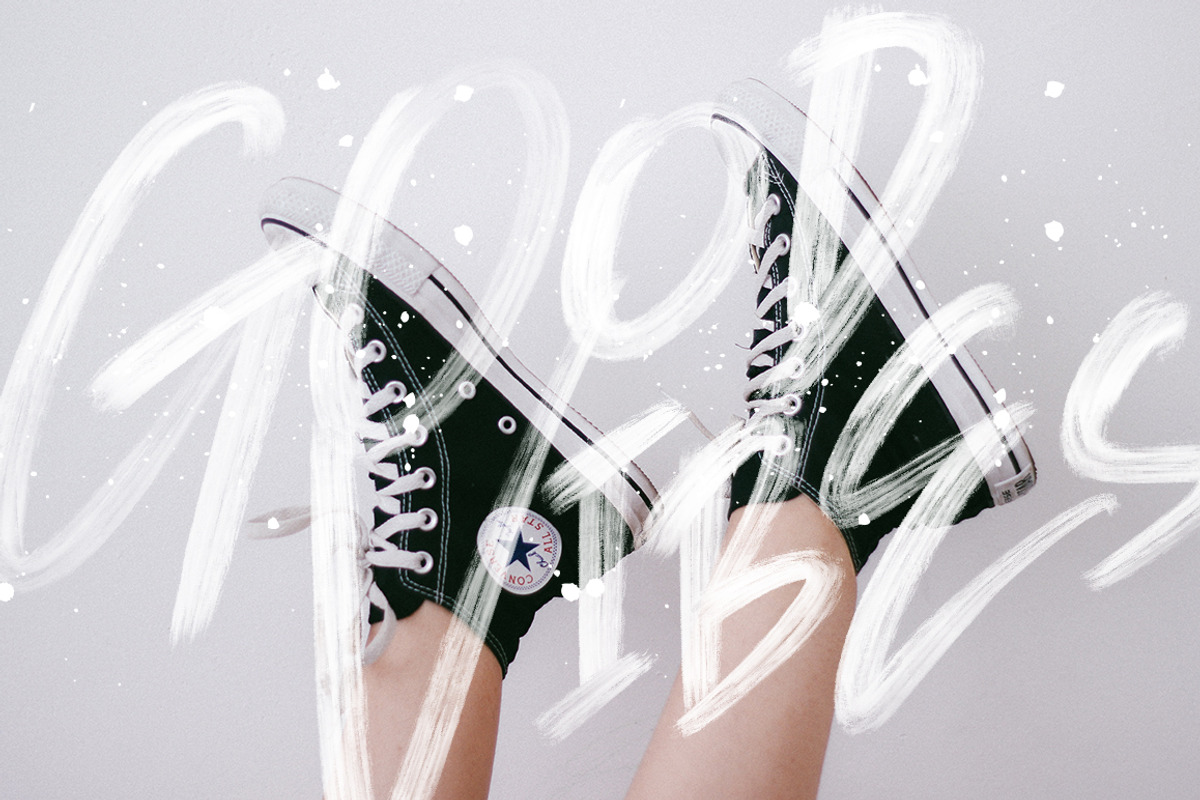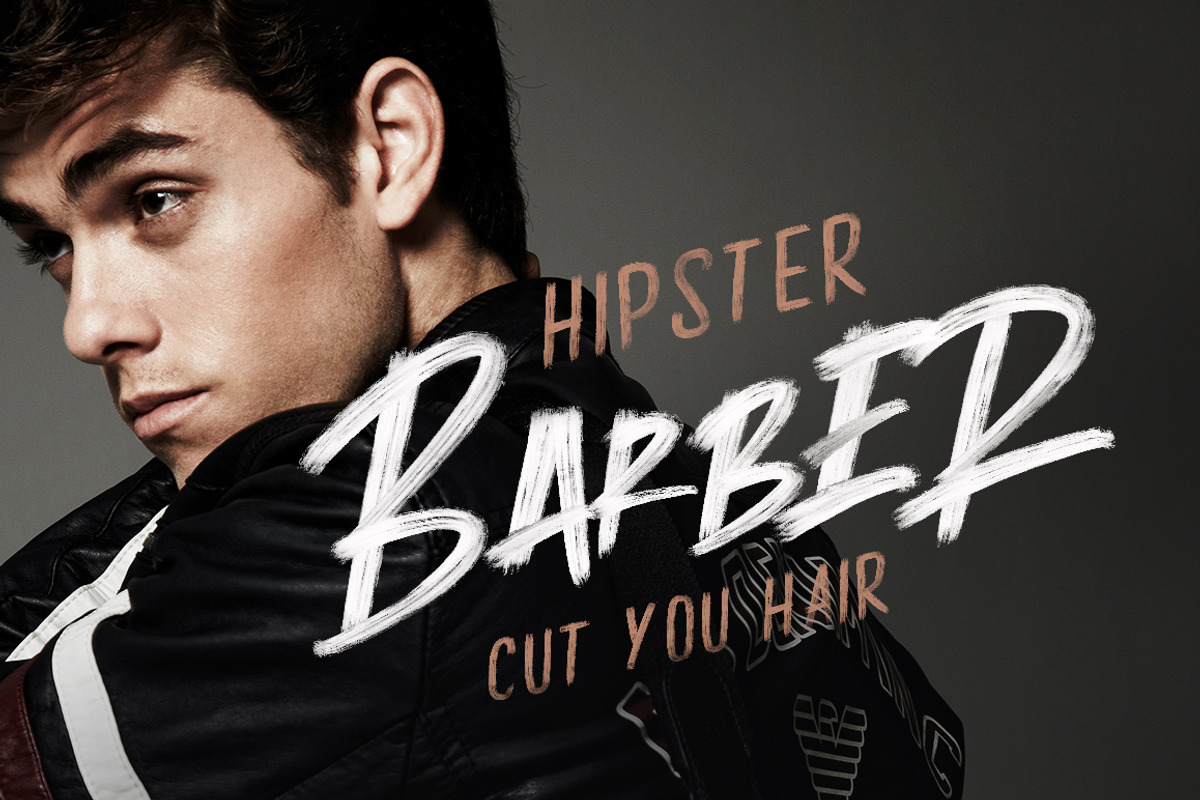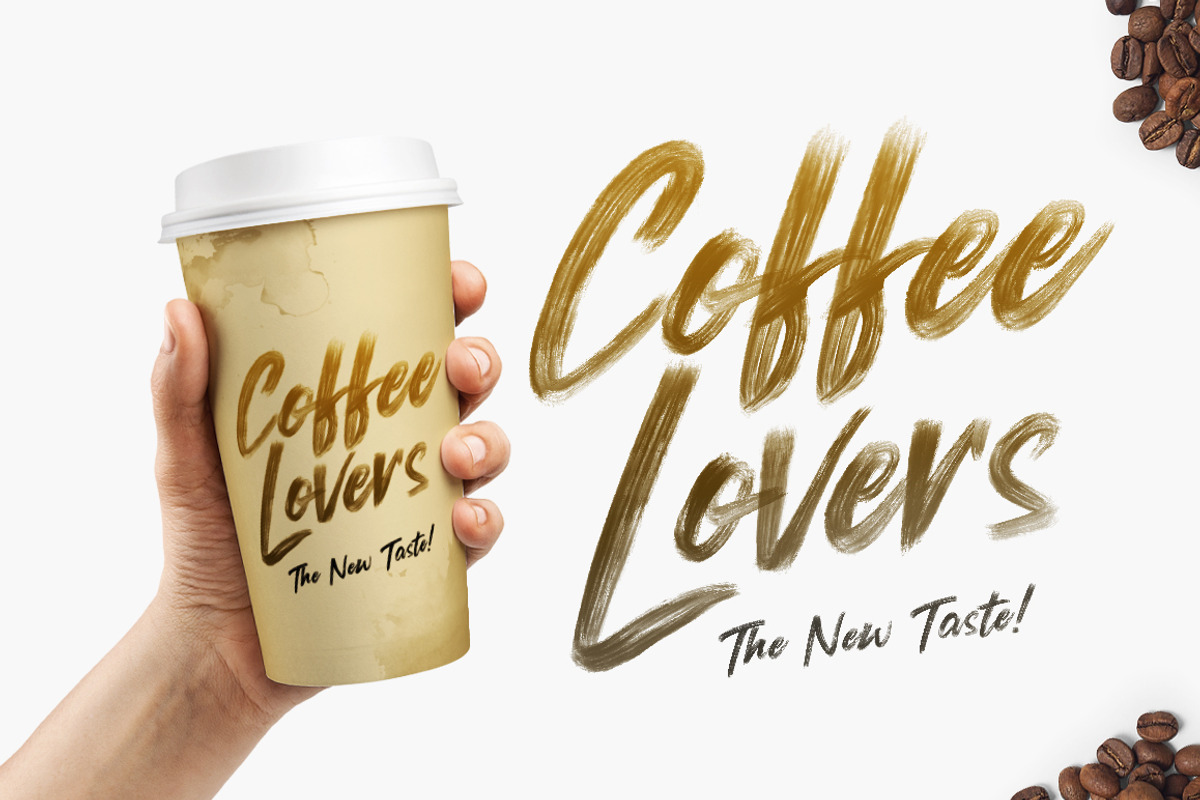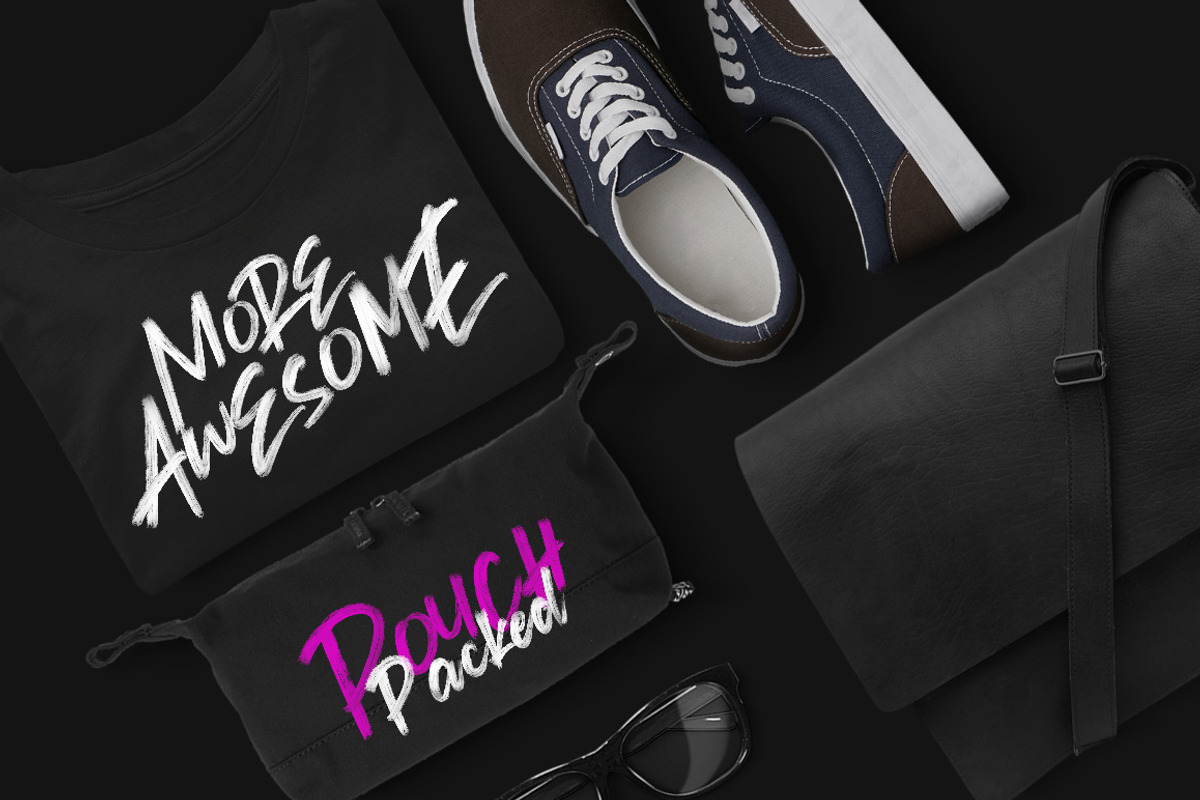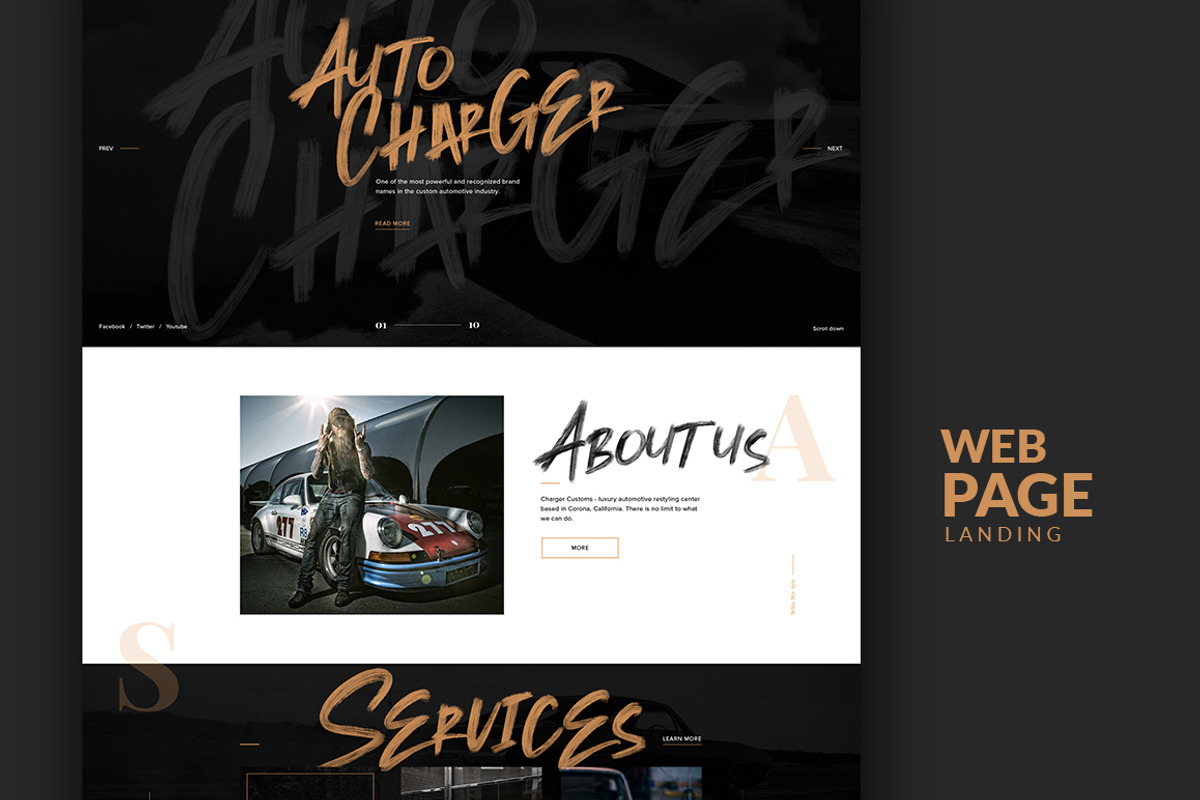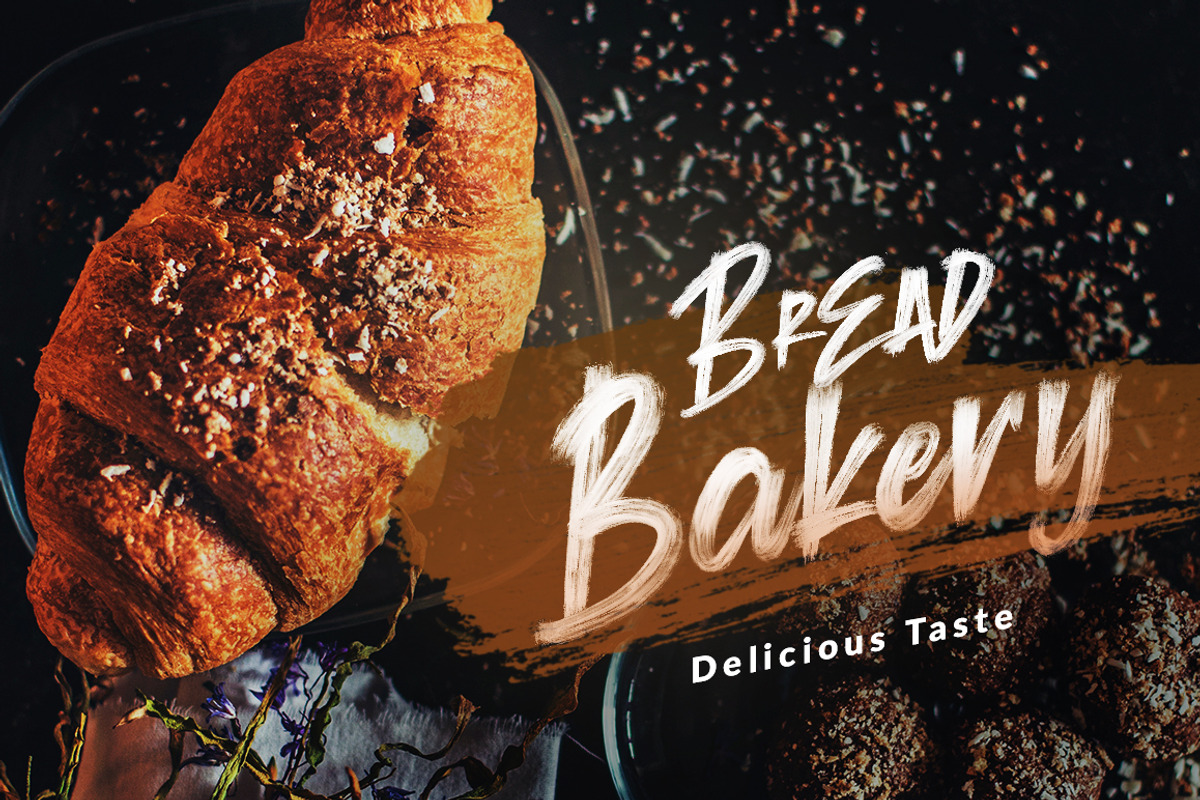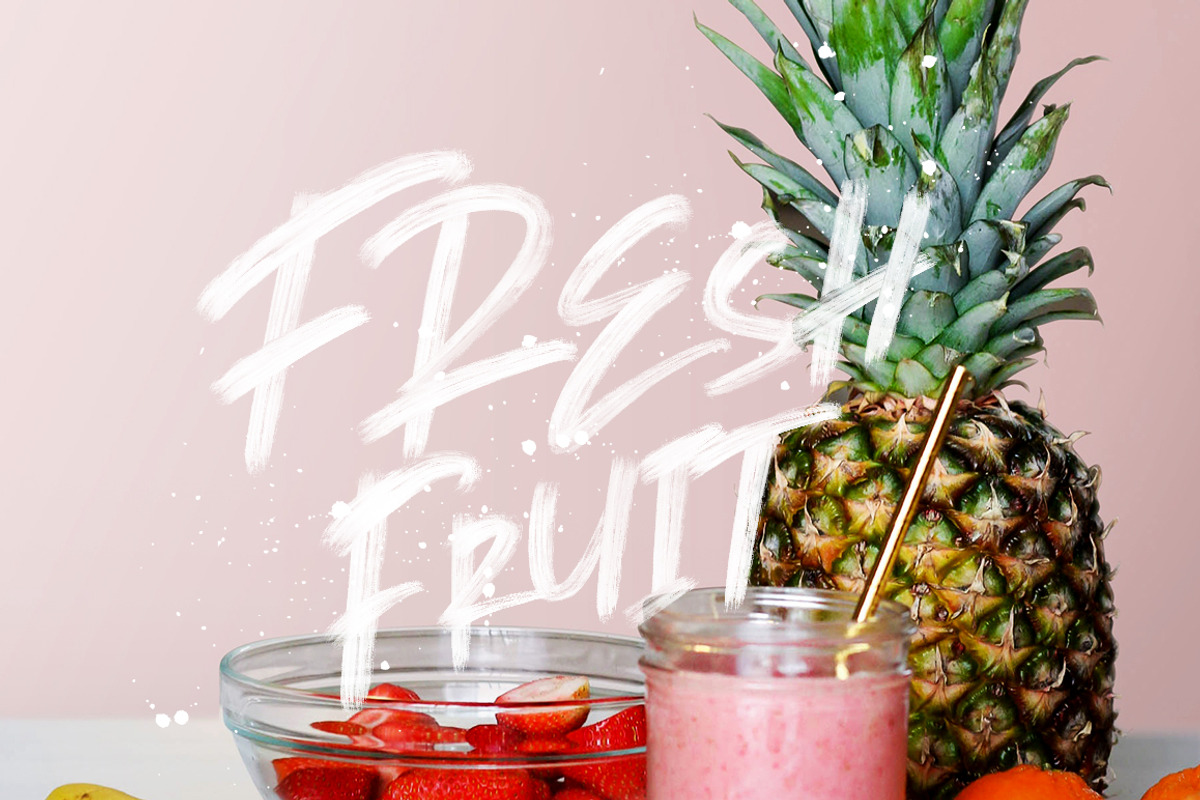
Shockwave SVG Collection ⚡️
Introducing the new Brush Fonts SVG with the real Brush Textured. Create with love so crafted, just type what you want and so easy to use into your project.
Shockwave SVG Font • Use this version of the script font to re-create stunning hand-lettering with high-definition brush textures, completely built in to the font as a transparency. Requires Photoshop CC 2017 or Illustrator CC 2018 (or newer) to use.